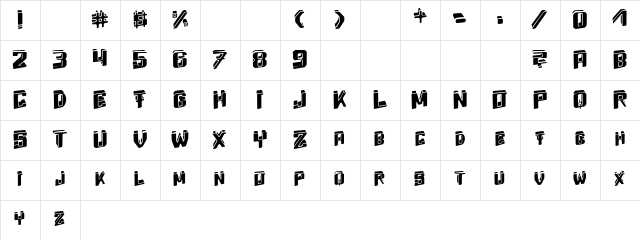
Energydimension Regular
Design Context for Energydimension Typeface
Energydimension is a composed and adaptable typeface that performs quietly and consistently across a wide range of design contexts.